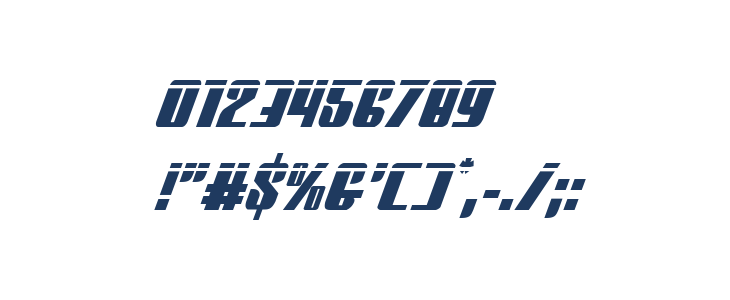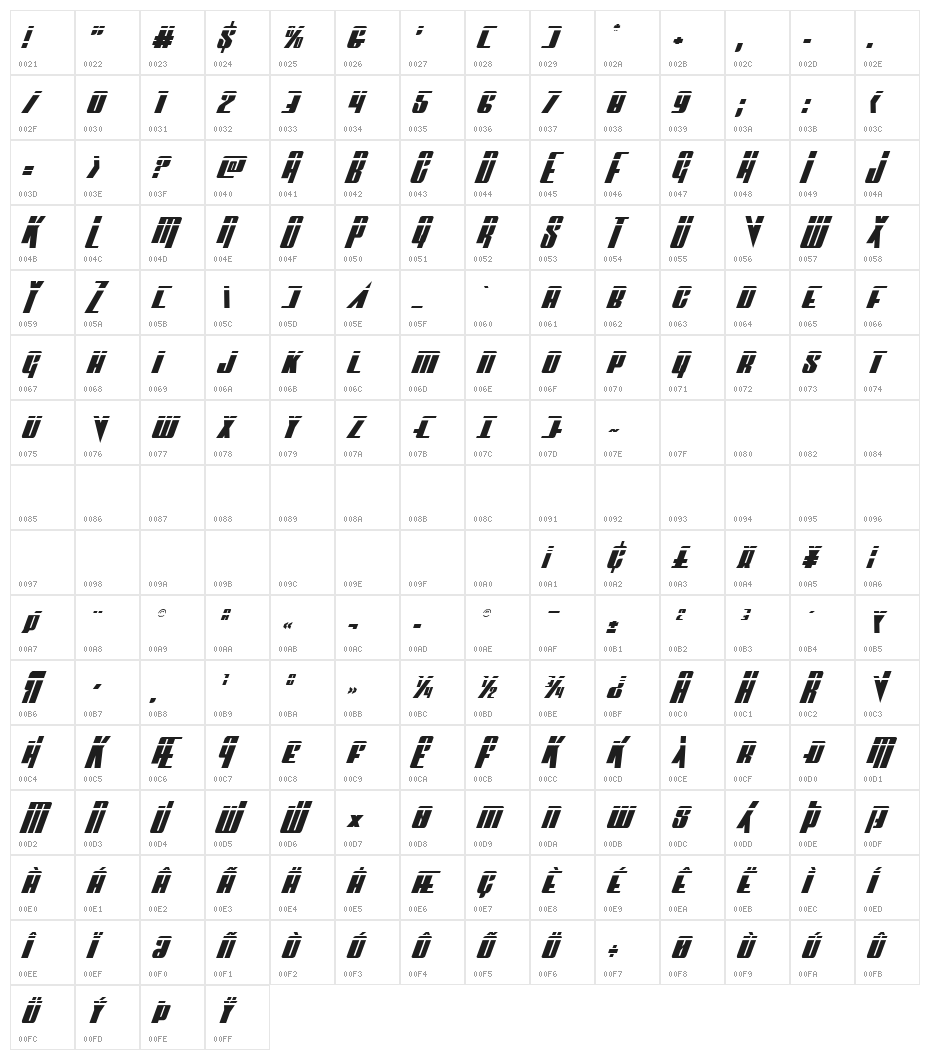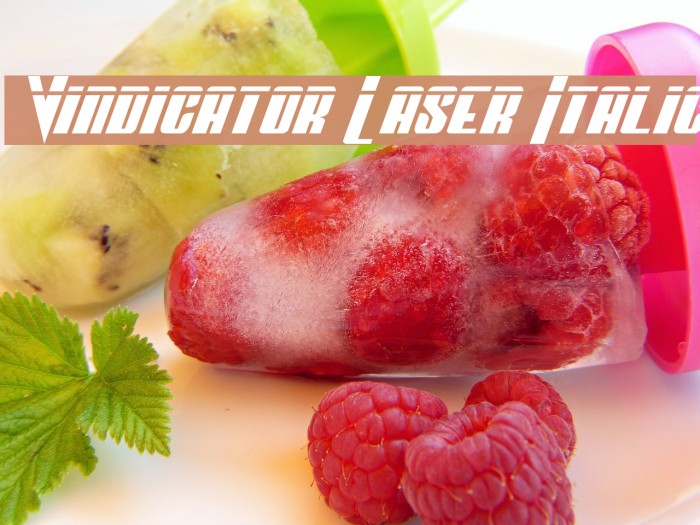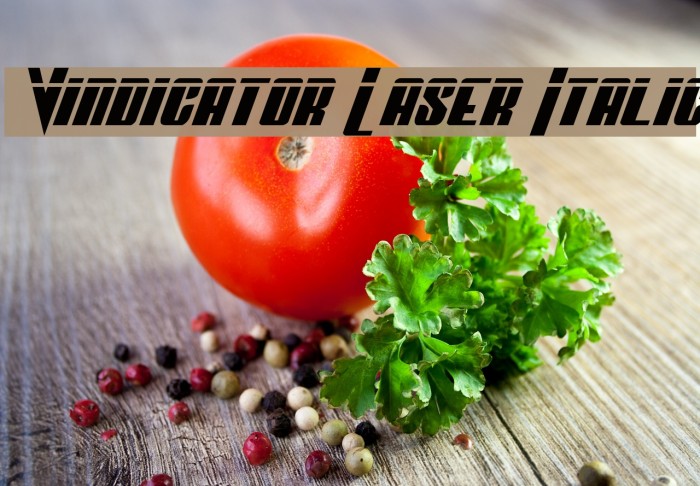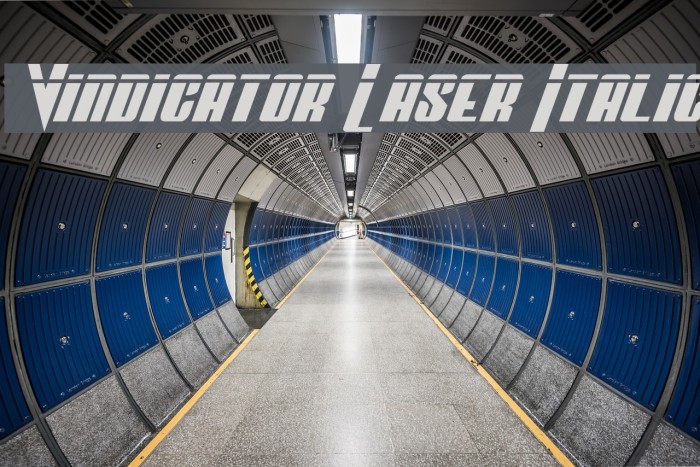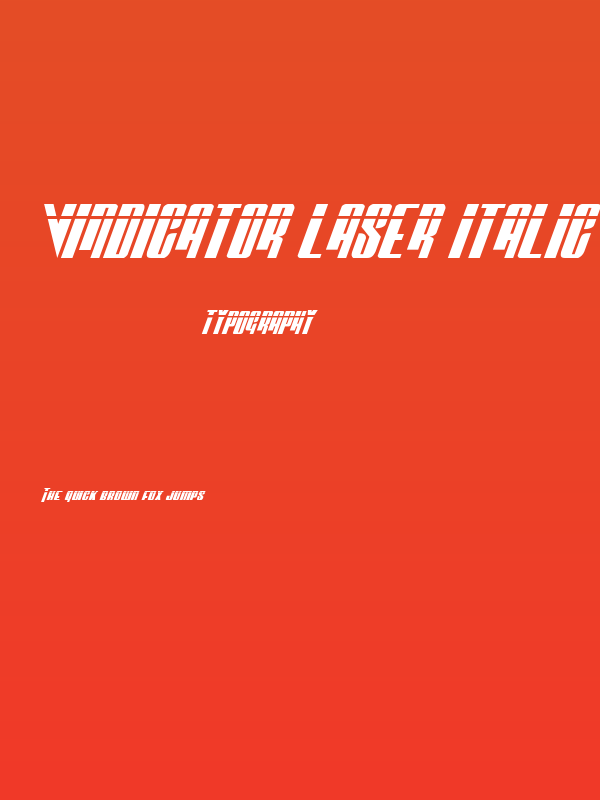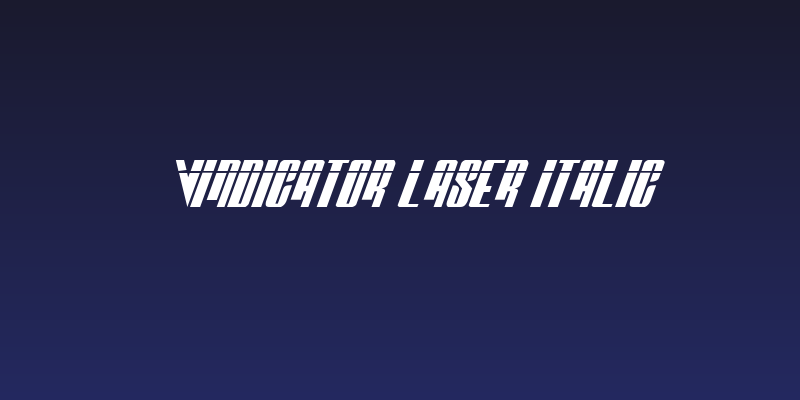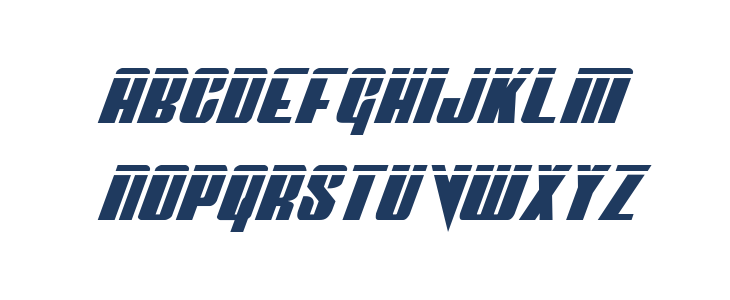
Vindicator Laser Italic Font
Vindicator Laser Italic Description
This font features a bold and dynamic design with a futuristic flair. The characters are sharply angled and italicized, giving a sense of motion and speed. The strokes are thick and consistent, creating a strong visual impact. The uppercase and lowercase letters maintain a uniform style, with the uppercase being particularly prominent. Numbers and special characters follow the same bold and angular design, ensuring consistency across all glyphs. The font's aggressive style makes it suitable for attention-grabbing headlines and logos.
| Proposed Projects | Ideal for projects needing a bold statement, such as sports branding, tech logos, or sci-fi themed designs. |